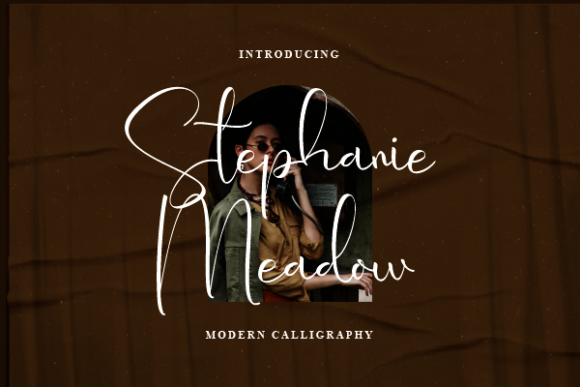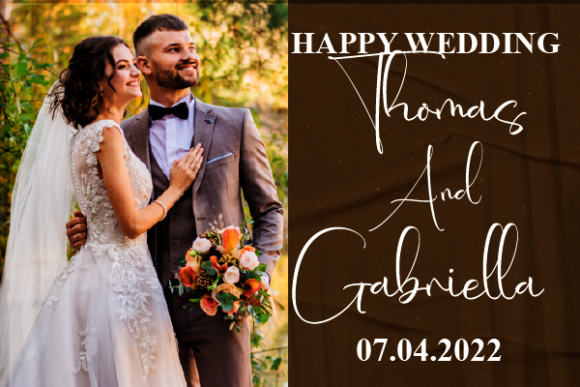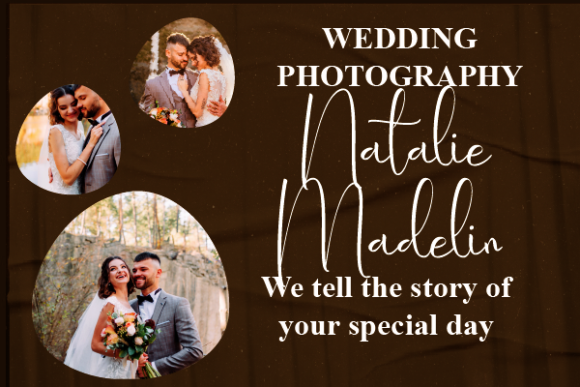
About Stephanie Meadow Font
“Stephanie Meadow” emerges as a fashionable and delicate script font, radiating an air of sophistication and charm. With its versatile nature, it effortlessly complements a diverse range of projects, including logos, branding endeavors, labels, photography, watermarks, special events, and any other lovely creations that call for a touch of beautiful script elegance.
Envision “Stephanie Meadow” as a brush that adds strokes of grace and refinement to your designs. Its intricate curves and stylish lines infuse your projects with a sense of luxury, transforming them into visual masterpieces that command attention. As you incorporate this font into your creations, you’ll embark on a journey where your concepts evolve into captivating visual narratives.
Beyond its visual allure, “Stephanie Meadow” embodies an essence of beauty and artistry. Its script nature imparts a touch of authenticity and charm, turning your designs into more than just visuals – they become expressions of elegance and sophistication. Each character contributes to the exquisite tapestry of your creative vision.
“Stephanie Meadow” becomes an indispensable tool in your design arsenal. Its adaptability enables it to seamlessly harmonize with various styles, themes, and intentions. Whether you’re crafting a memorable logo, adding a touch of class to a label, or enhancing the ambiance of a special event, this font elevates the impact of your message.
In a world where design speaks volumes, “Stephanie Meadow” becomes your medium for crafting designs that captivate the senses and leave an indelible mark. Let its delicate strokes be the artistic flourishes that enhance your creations, infusing them with a touch of script elegance. Embrace the sophisticated allure of “Stephanie Meadow” and watch as it transforms your projects into captivating showcases of refinement, resonating with all who engage with them.